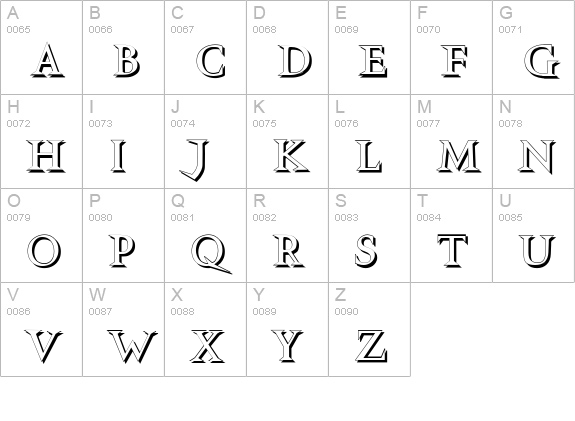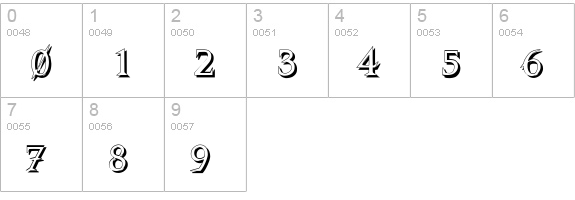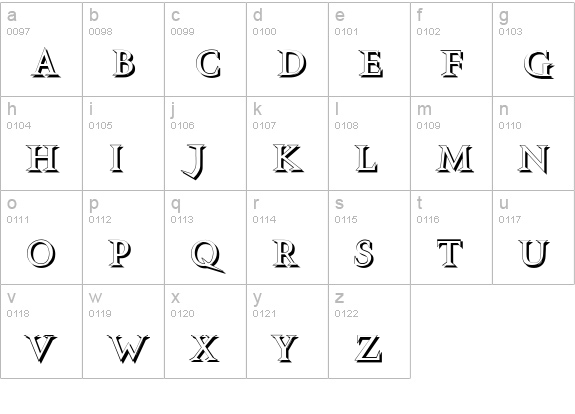
VTCSwitchbladeRomanceShadowed Font Details
VTCSwitchbladeRomanceShadowed font is a captivating and mysterious typeface that will add a touch of intrigue to any design project. Its unique combination of sharp edges and delicate curves creates a perfect balance between elegance and edginess, making it ideal for both romantic and adventurous themes. Whether you're designing a book cover, a movie poster, or a logo, this font will instantly grab attention and leave a lasting impression. The shadowed effect adds depth and dimension to the letters, giving them a three-dimensional appearance that will make your text pop off the page. The intricate details of this font make it a true work of art, and its versatility allows it to be used in a wide range of design styles. The best part? VTCSwitchbladeRomanceShadowed font is available for free download at FontsMarket.com! That's right, you can add this stunning font to your collection without spending a dime. It's the perfect opportunity to enhance your creative projects without breaking the bank. So why wait? Download VTCSwitchbladeRomanceShadowed font today and unleash your creativity with this captivating and freely available typeface. Whether you're a professional designer or a hobbyist, this font will take your designs to the next level and leave a lasting impression on your audience. Don't miss out on the opportunity to make your work stand out – get this font now and let your imagination run wild.